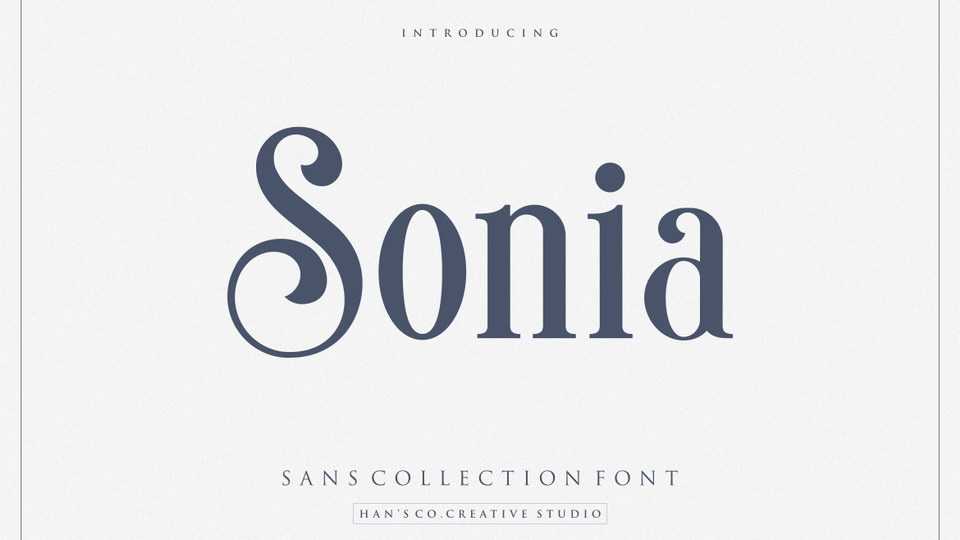
Download Sonia font, an elegant serif typeface designed with lovely circle tail to create a classy font style. Sonia perfectly represents classic yet modern way.